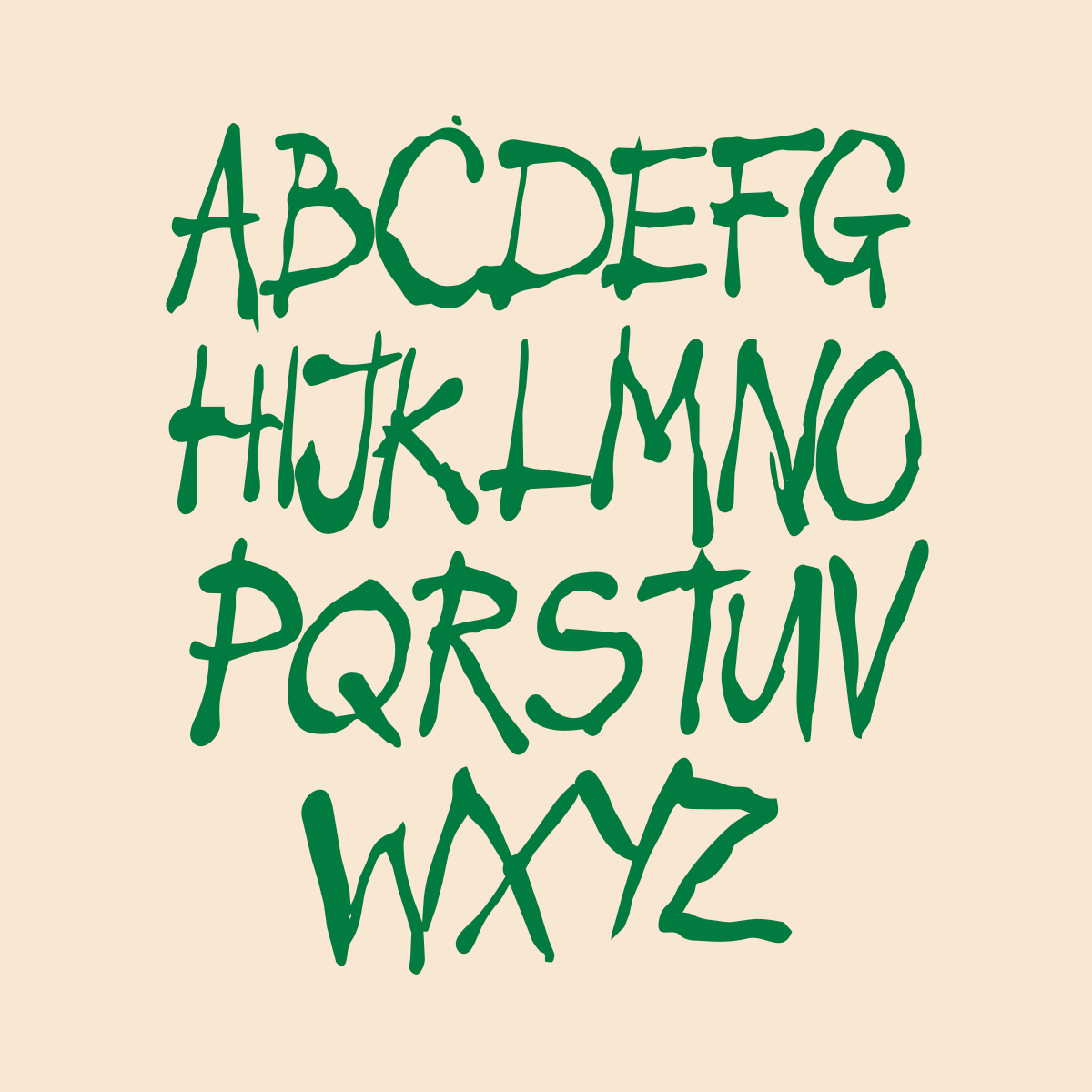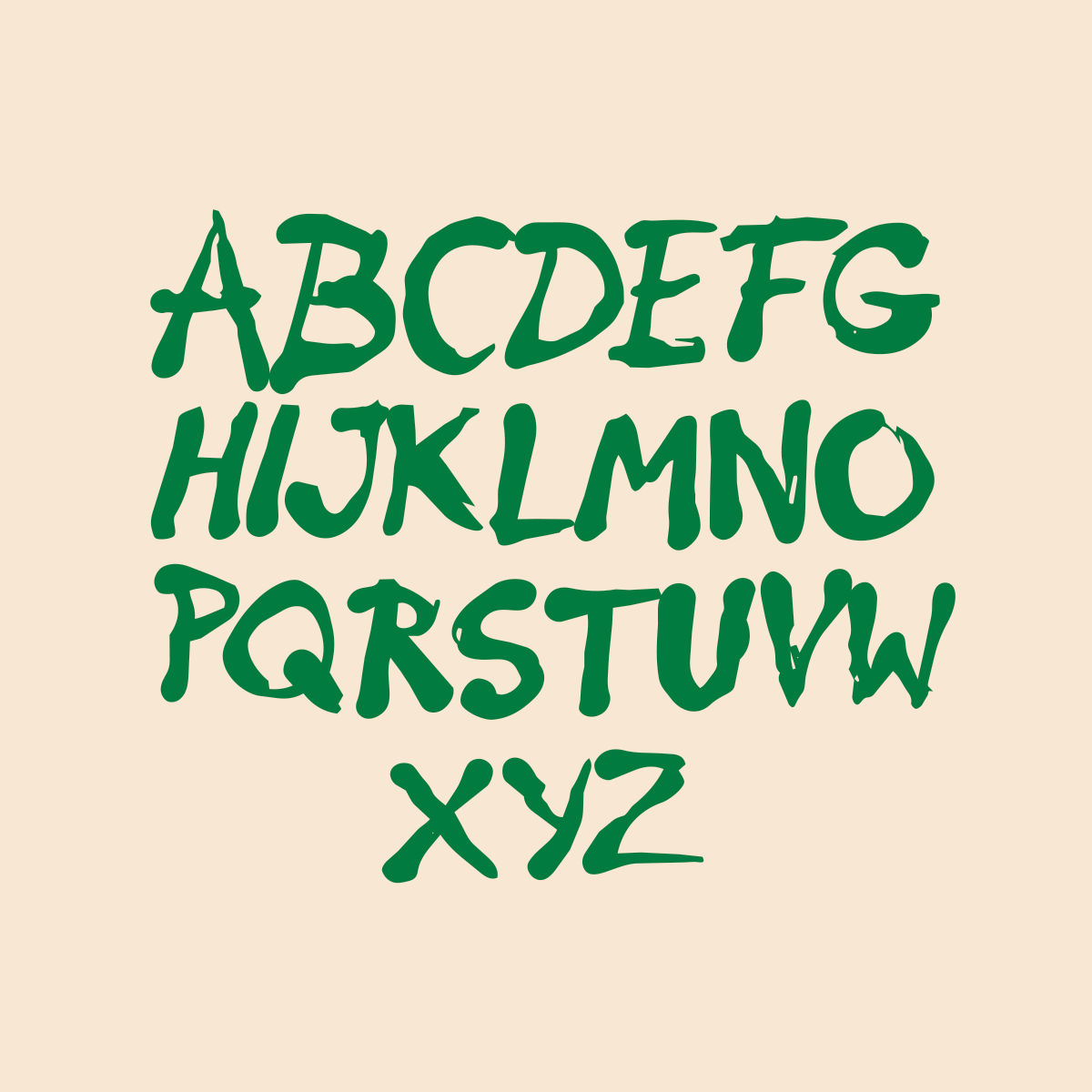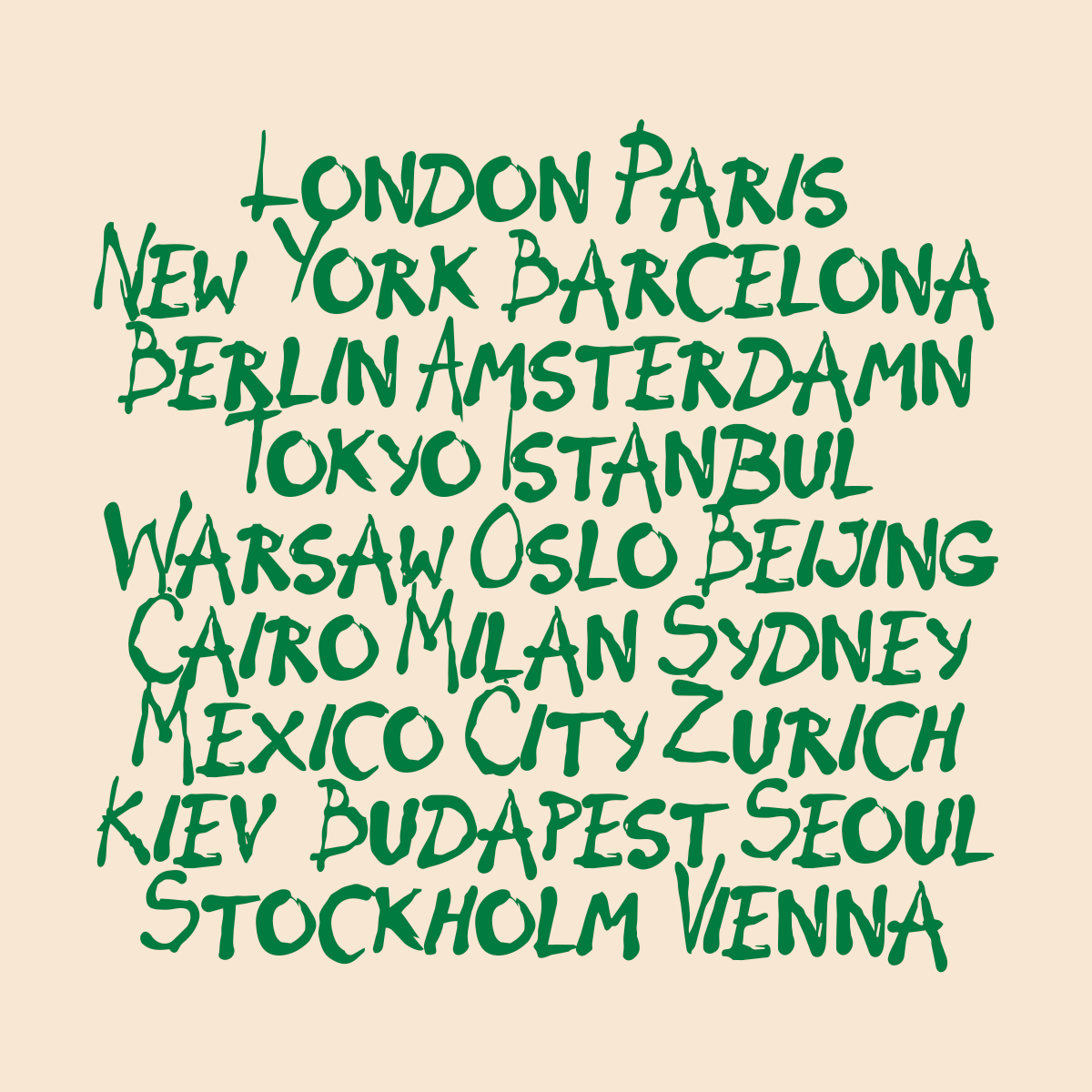
Spicy Mango is my hand painted (using a tester pot and a stick from my garden) font! It's a quirky little number that's ideal for logos, merchandise, posters, menus, social media posts and so much more!
Full alphabet (Different styles for Uppercase and Lowercase)
Numbers and essential symbols